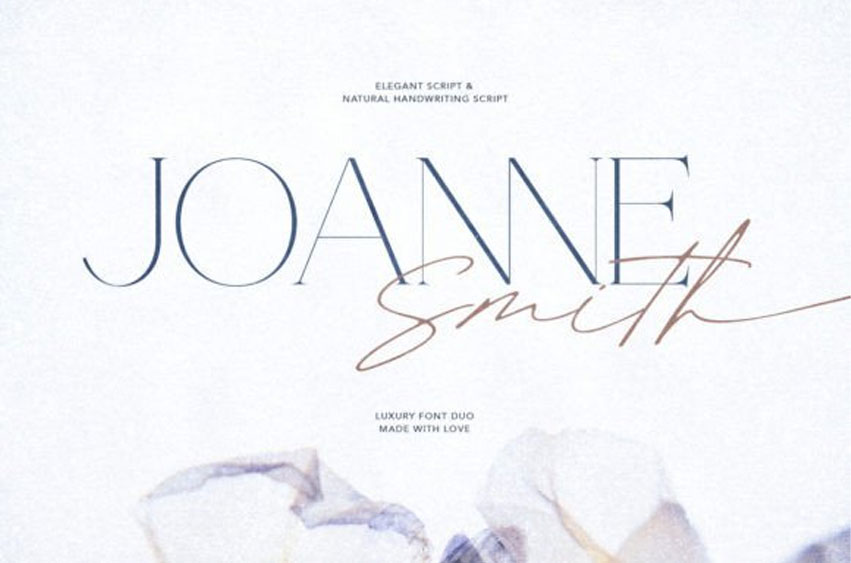
Joanne Smith Font
Joanne Smith Font is a font duo that contains an elegant serif and a natural handwriting script. You can use these fonts for any purpose, such as branding, logo, and for wedding invitations.
Don’t need to find the perfect match of fonts for your new project, you can get two in this one pack. This font is versatile and stunning for timeless use.